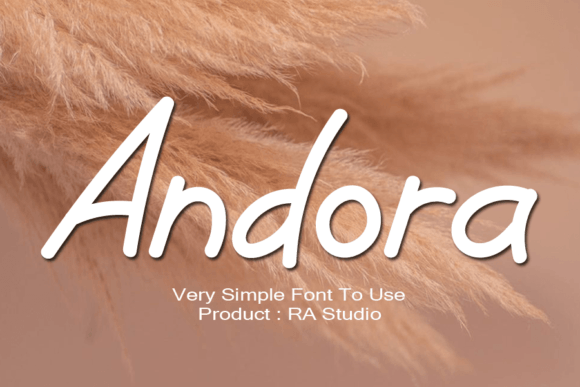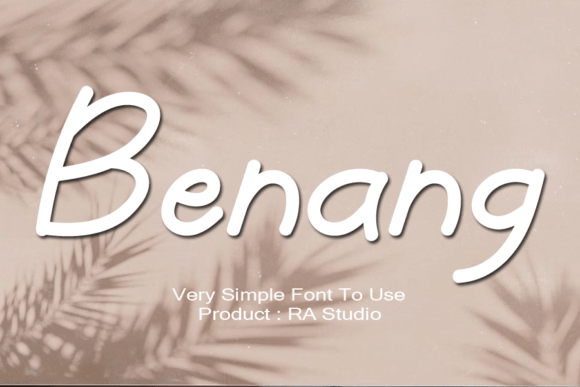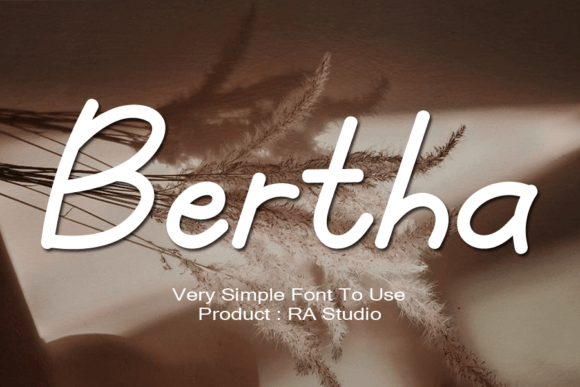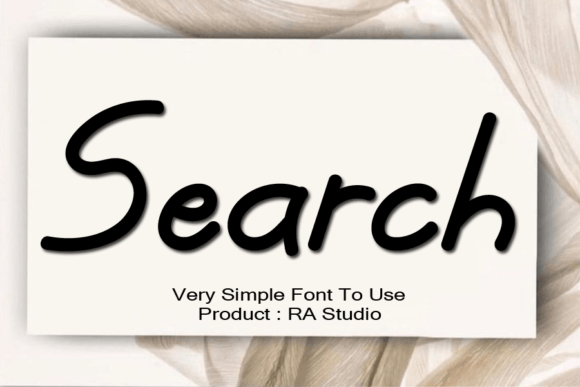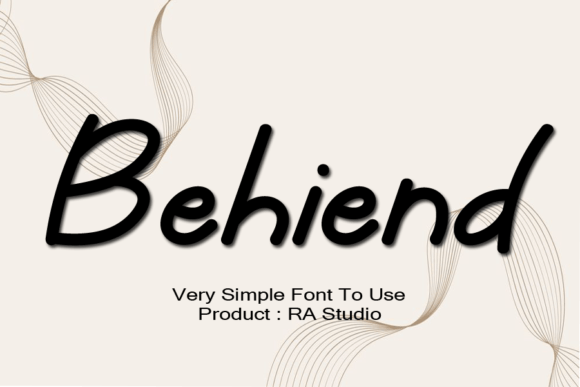
Andora Font
“Andora: Sweet and Cursive Handwritten Font for Joyful and Romantic Designs
Introducing ‘Andora,’ a sweet and cursive handwritten font that adds a touch of joy and romance to your design projects. This gentle font is versatile and looks gorgeous on a variety of creative ideas, bringing a joyful and romantic essence to each project. Whether you’re working on wedding invitations, thank you cards, quotes, greeting cards, logos, or business cards, ‘Andora’ is the perfect choice. It’s more than just a typeface; it’s a design asset that elevates your work, making it visually stunning and memorable.
The sweet and cursive design of ‘Andora’ makes it a charming choice for a wide range of design applications. The handwritten style adds a personal touch, enhancing the overall aesthetics and creating a visually pleasing experience.
For wedding invitations, thank you cards, and various creative projects, ‘Andora’ becomes a standout choice, infusing a sense of elegance and romance into your text. The font’s stylish and elegant design contributes to a stunning and memorable look.
In various design projects, ‘Andora’ serves as a delightful element, creating a visual impact with its sweet and cursive handwritten style. Its versatility adds a touch of joy and romance to your endeavors, making it suitable for a wide range of contexts.
‘Andora’s’ ability to bring a joyful and romantic touch to projects makes it a valuable addition to your font library. Whether you’re working on quotes or logos, this font brings a unique and stylish character to your designs.
In conclusion, ‘Andora’ is more than just a typeface; it’s a design companion that adds joy and romance to your creative toolkit. Let ‘Andora’ be the artistic element that transforms your wedding invitations, logos, and various other projects. Embrace the sweet and cursive charm of ‘Andora,’ and watch as it elevates your designs into visually enchanting and memorable experiences.”